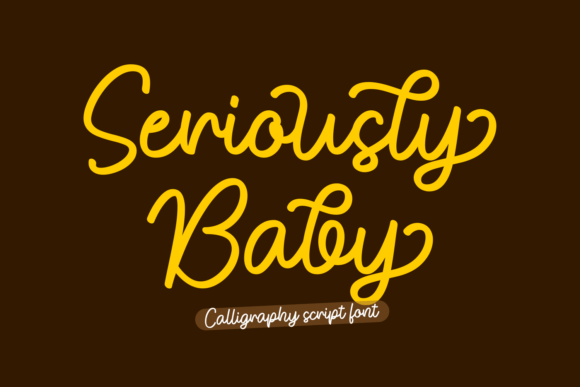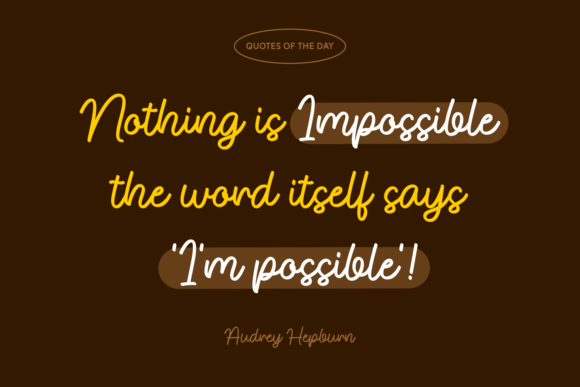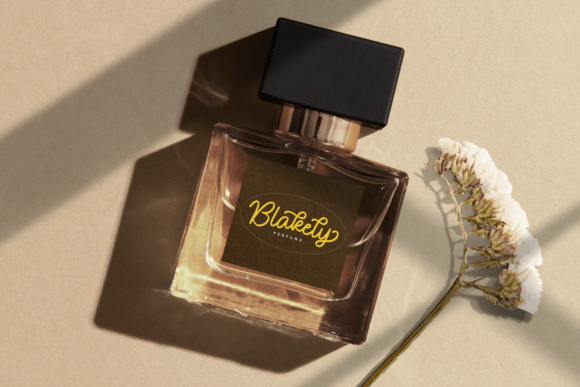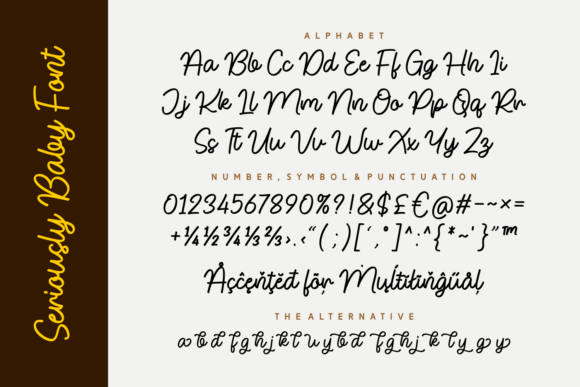
Seriously Baby Font: A Playful Script for Cute DIY & Cricut Projects
About the Seriously Baby Font
The Seriously Baby Font offers a perfect balance of form and function for your design needs. Seriously Baby is a bold and playful calligraphy script font that brings high energy and personality to your designs. With its chunky curves, bouncy baseline, and flowing strokes, it’s ideal for kids’ projects, fun branding, product packaging, and cheerful quotes. This font radiates warmth, joy, and confidence in every letter.
Seriously Baby Font Usage Examples
Seriously Baby Font Example